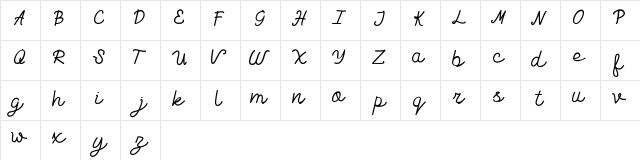
Exiona Demo Regular Font Preview
Exiona Demo Regular
Exiona Demo Regular Font Details
Design Context for Exiona Demo Typeface
Exiona Demo is a composed and adaptable typeface that performs quietly and consistently across a wide range of design contexts.